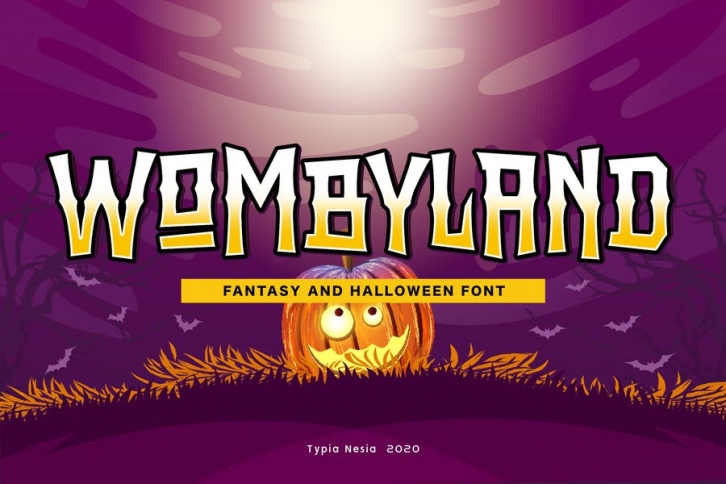
Wombyland - Fantasy Movie - Horror Game Font
Suitable for any design needs : logo, branding, modern advertising design, cartoon, animation, kid book, logos, poster quote, book / cover Title, editorial design, website / blog, card, custom mug, pillow, t-shirts, and any hand-lettered needs.